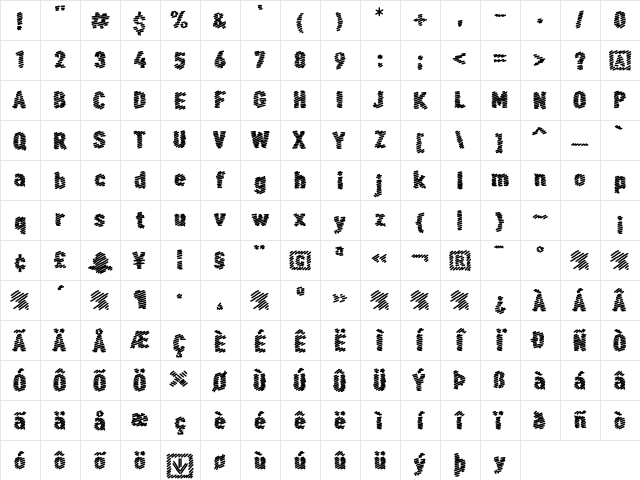
Scribble BoldScrawl Free Font
Scribble BoldScrawl
Style: BoldScrawl
Design Context for Scribble
Scribble is a composed and adaptable typeface that performs quietly and consistently across a wide range of design contexts. Its bold stroke weight gives it real presence on the page.